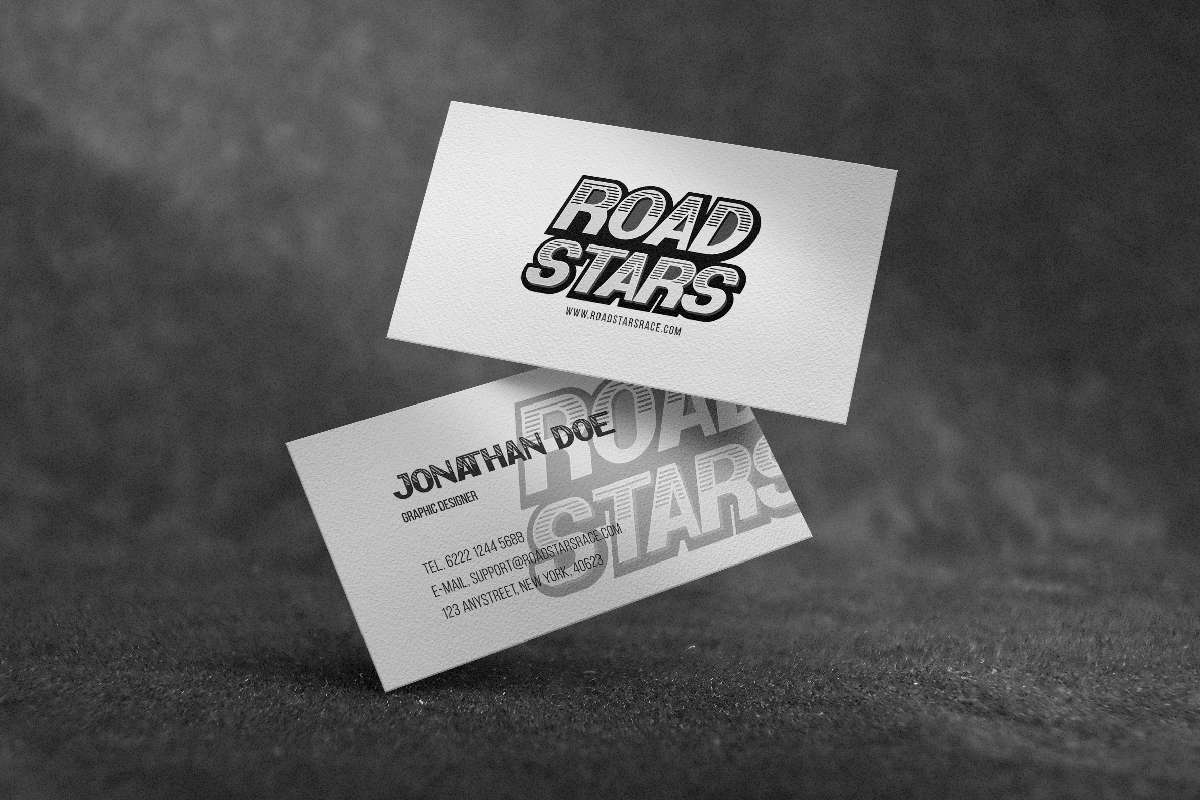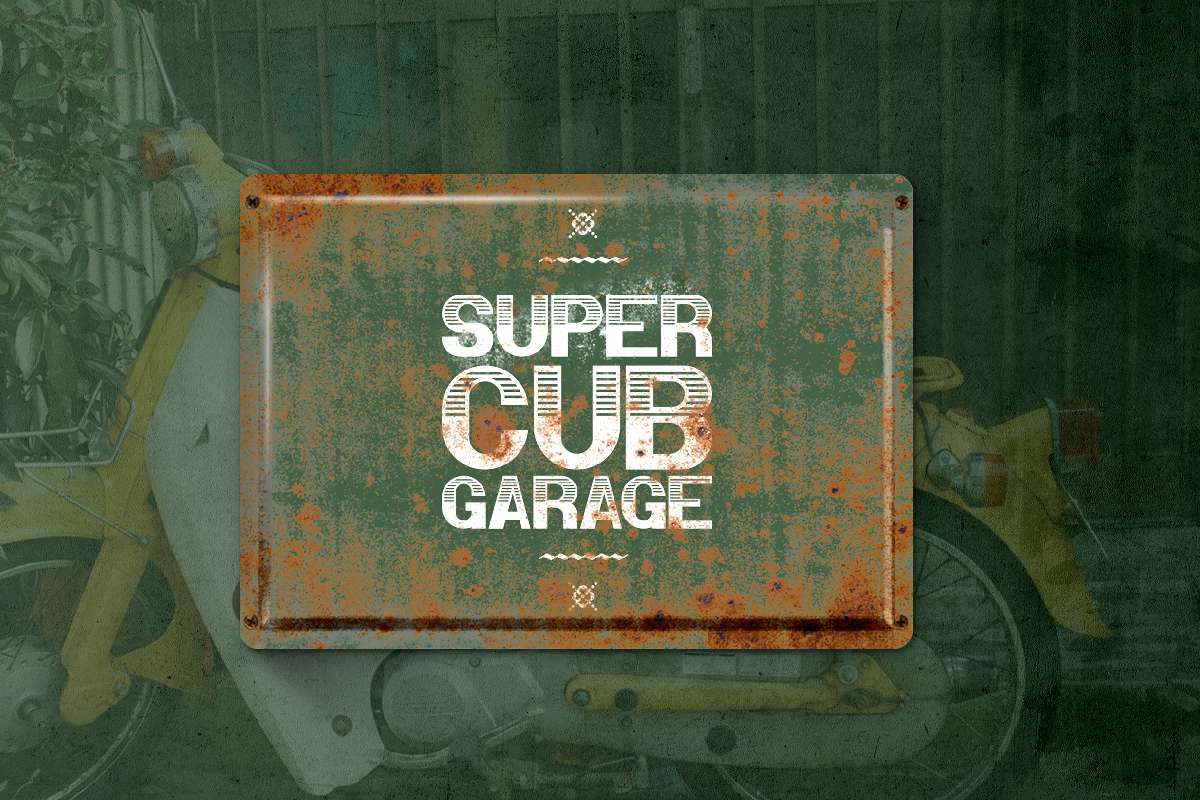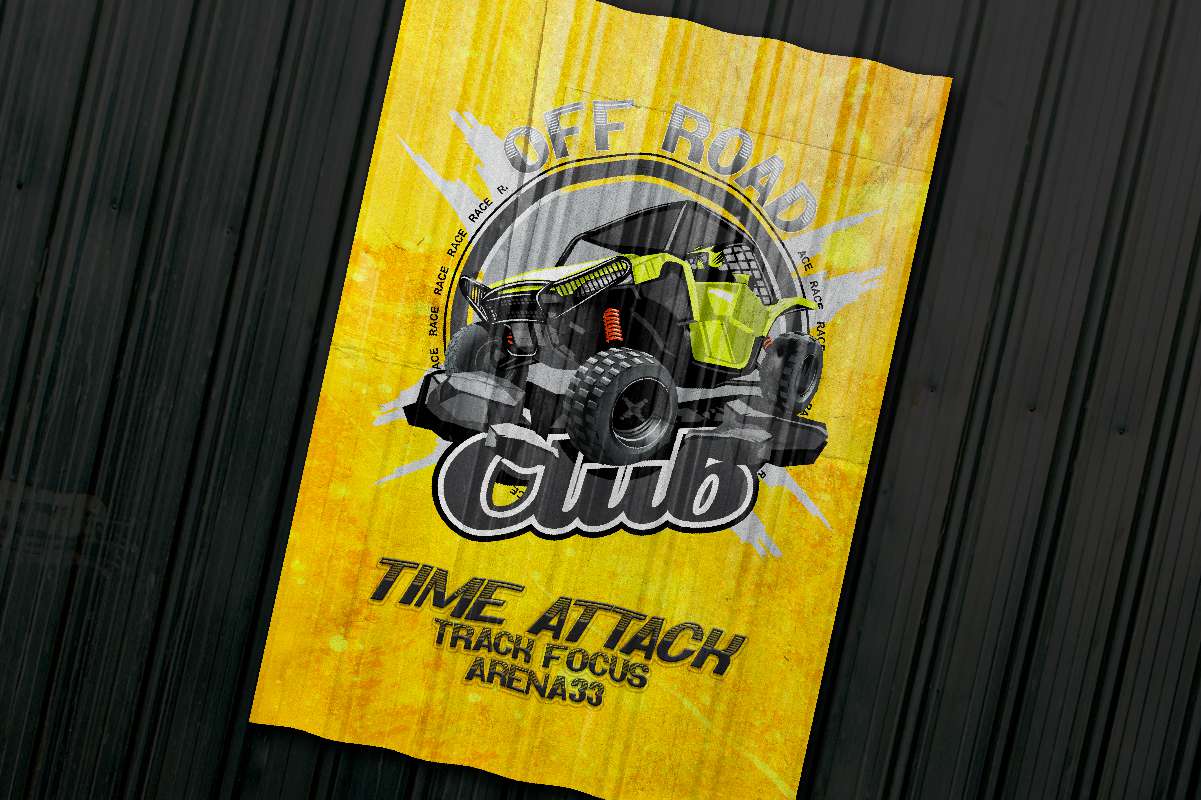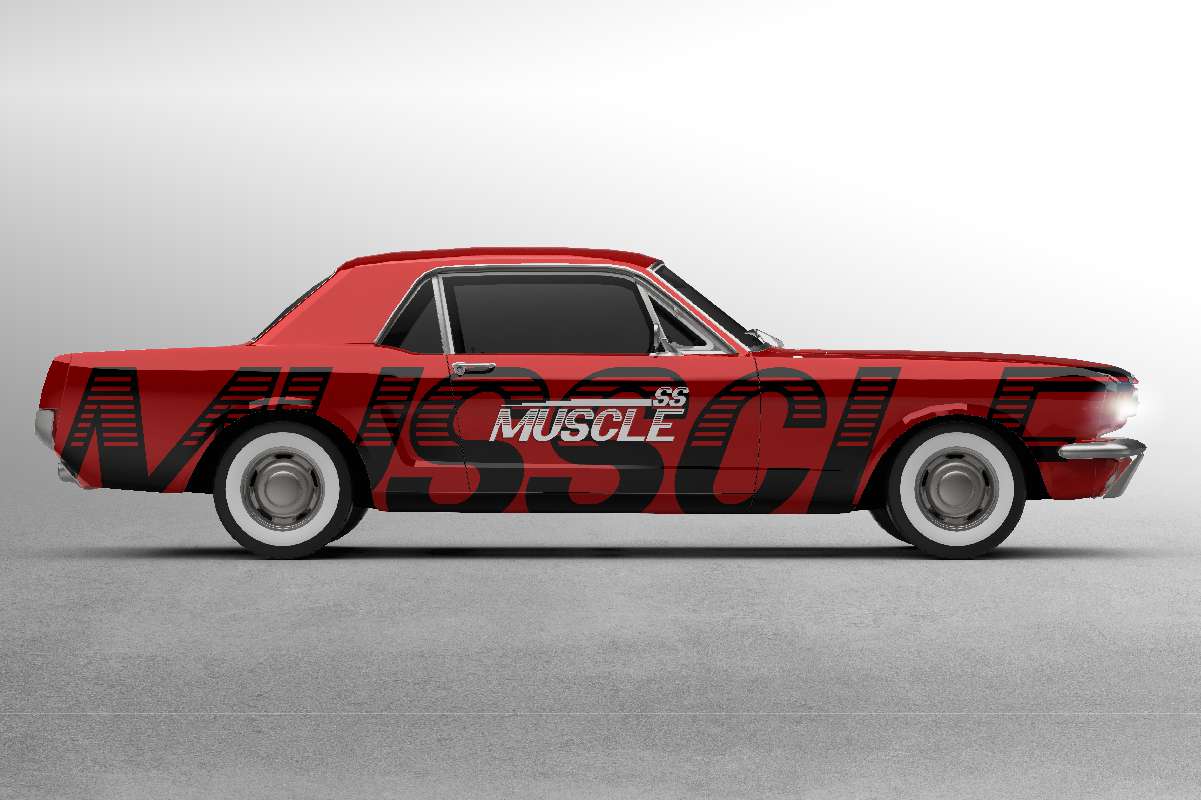
Retro Race Display Font
It’s a display sans serif font with display style. This font has a racing, speed, sport theme, with a retro or vintage vibe and has a line in each letter representing the impression of the world of race that looks amazing in almost any context. Use it for game, logos, promotion, products, title, and more!
Retro Race Font has 2 different styles: Regular and Italic. This font includes set of Uppercase Basic Characters, Numerals and Punctuation. Retro Race Font will be great for Use it for any project that needs a unique, vintage look!